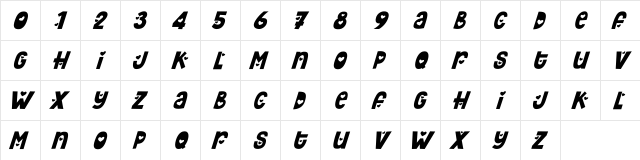
Hey Elsie Cute Regular
| Designer | Ari Liari |
Design Context for Hey Elsie Cute Typeface
Hey Elsie Cute is a composed and adaptable typeface that performs quietly and consistently across a wide range of design contexts.